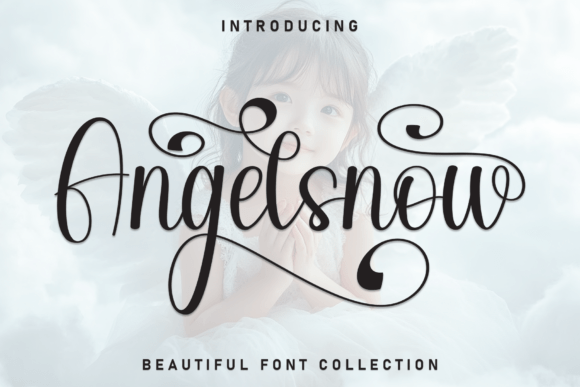
The Sweet Spot: Discovering Angelsnow Font
I still remember the time I was working on a wedding invitation project, and my client asked for a font that was ‘sweet, friendly, and playful.’ I scoured the internet, tried countless fonts, but nothing seemed to fit the bill. That was until I stumbled upon Angelsnow Font. It was like a breath of fresh air – the perfect blend of whimsy and charm. In this article, I’ll share my experience with Angelsnow Font, its features, and how to make the most of it in your designs.
A First Impression: What Makes Angelsnow Font Special
Angelsnow Font is a delightful handwritten display font that exudes sweetness and friendly appeal. Its playful nature makes it perfect for designs that require a jubilant touch, such as wedding invitations, greeting cards, or any project that needs a dash of whimsical vivacity.
- ✨ Sweet and Friendly Appeal: Angelsnow Font has a unique charm that adds a personal touch to your designs.
- ✅ Playful and Whimsical: The font’s playful nature makes it perfect for designs that require a fun and lively feel.
- 💕 Versatile: Angelsnow Font can be used for a variety of projects, from wedding invitations to greeting cards and more.
⚠️ While Angelsnow Font is a beautiful font, it may not be suitable for body text due to its decorative nature. It’s best used for headlines or titles where you want to make a statement.
🤔 Some users may find that the font’s sweetness can be overwhelming if not used in moderation.
- Explore stylistic alternates and glyphs to add more variety to your text.
The Designer Inspiration
Angelsnow Font was inspired by the magic of childhood and the whimsy of everyday life. The font’s creator wanted to capture the essence of sweetness and friendliness in a font that would bring joy to designers and their clients.
Q: What type of designs is Angelsnow Font best suited for?
A: Angelsnow Font is perfect for designs that require a sweet, friendly, and playful touch, such as wedding invitations, greeting cards, and other celebratory materials.
Q: Is Angelsnow Font suitable for body text?
A: No, Angelsnow Font is best used for headlines or titles where you want to make a statement. It’s not recommended for body text due to its decorative nature.